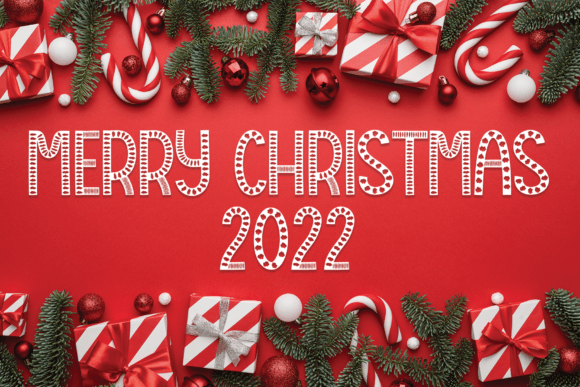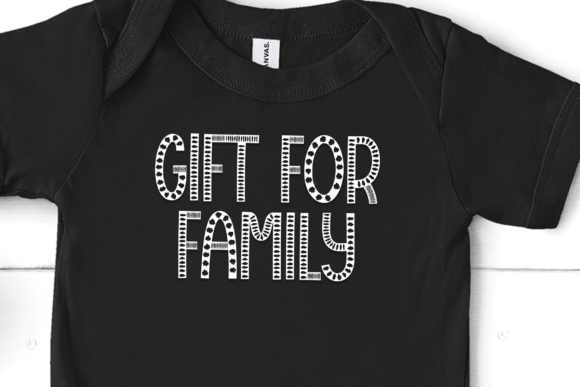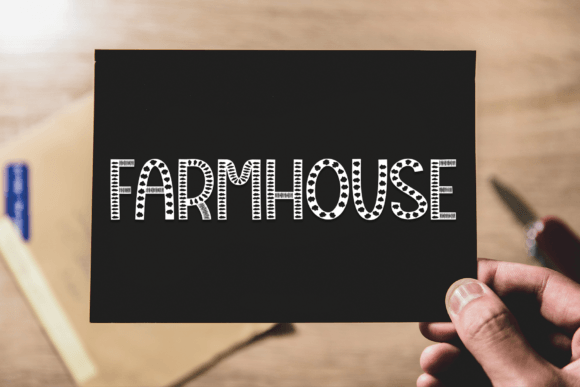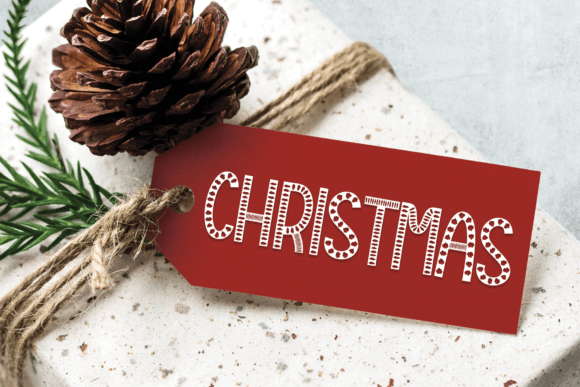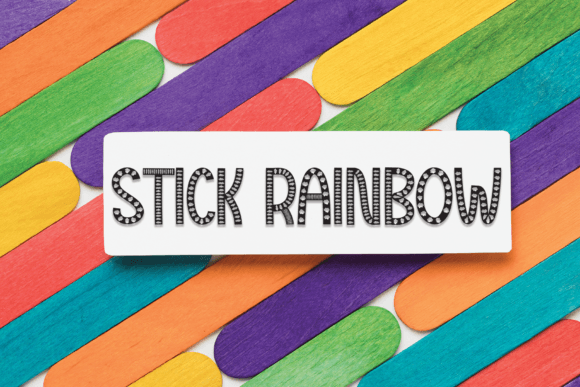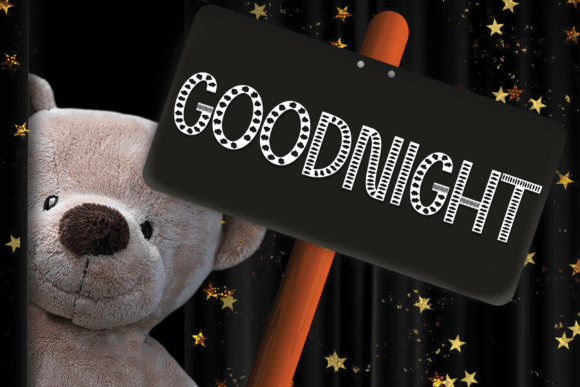
Introduction to Christmas Cloud Font
Christmas Cloud is a cool and unique decorative font.
Key Features of Christmas Cloud Font
Why Choose Christmas Cloud Font?
Christmas Cloud Font offers exceptional quality and versatility, making it a valuable addition to your design toolkit. Whether you’re creating for personal projects or commercial use, Christmas Cloud Font delivers professional results.